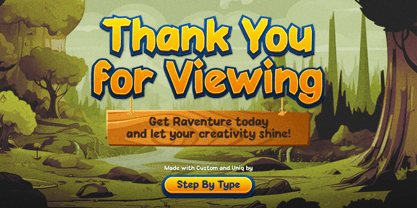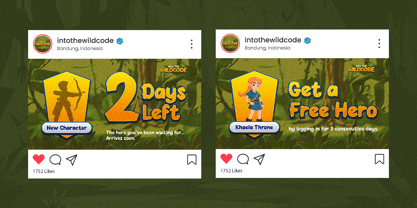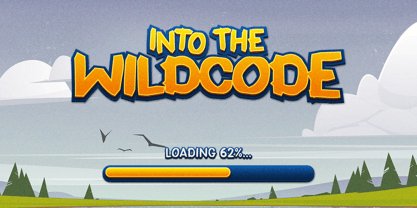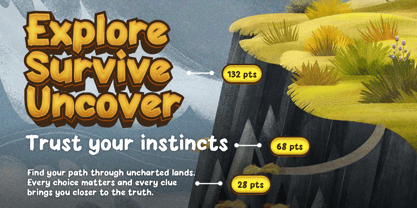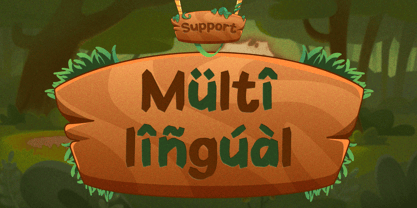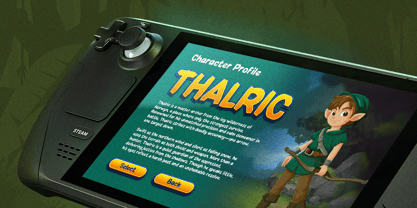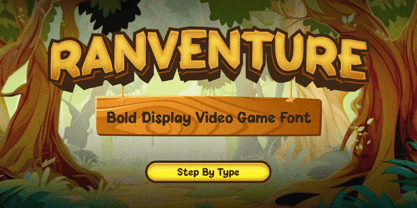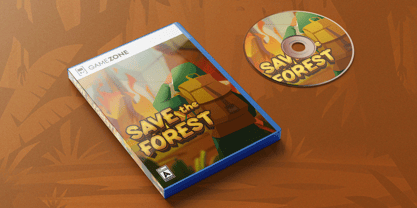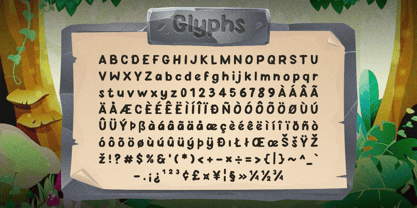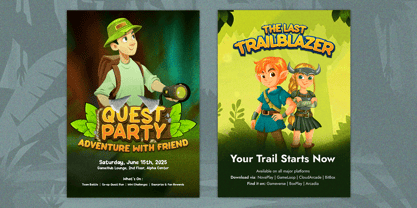
Raventure
The Raventure Font Family was designed by Asya Fatkhul Illah and published by Steptype. Raventure contains 1 styles. More about this family
Ranventure is a bold display font made for game worlds and playful adventures. With its chunky, hand-crafted letterforms and energetic character, Ranventure brings instant personality to game logos, title screens, UI, and everything in between — the kind of type that makes a fantasy world feel alive and a casual game feel fun.
Built for real production use, Ranventure ships with a full multilingual character set — uppercase, lowercase, numerals, punctuation, and extensive accented glyphs — so it works across languages and regions, not just English. Whether you're building a mobile game, an indie adventure, a Twitch overlay, a game asset pack, or playful branding, Ranventure is ready to play.
Great for: video game logos and titles, game UI and menus, mobile and indie games, Twitch and streaming graphics, kids' and cartoon branding, book covers, posters, packaging, and any project that needs playful adventure energy.